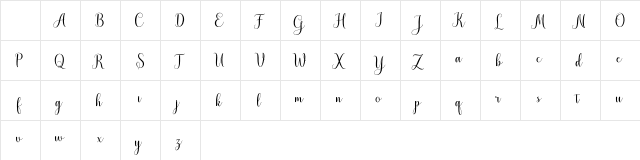
Complete Mistletoe Demo Regular glyph index. Displaying only characters natively supported by Mistletoe Demo Regular font.
Mistletoe Demo is a composed and adaptable typeface that performs quietly and consistently across a wide range of design contexts.